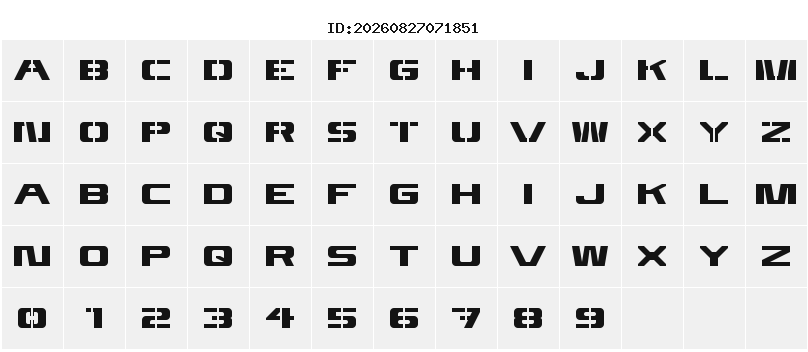
• Designer: Neoqueto
• Description: “4KSTNCL” was built with FontStruct
About 4KSTNCL.ttf
4KSTNCL.ttf is a modern, elegant sans-serif font designed for ultimate readability and visual harmony. Perfect for branding, headlines, web design, and print materials.